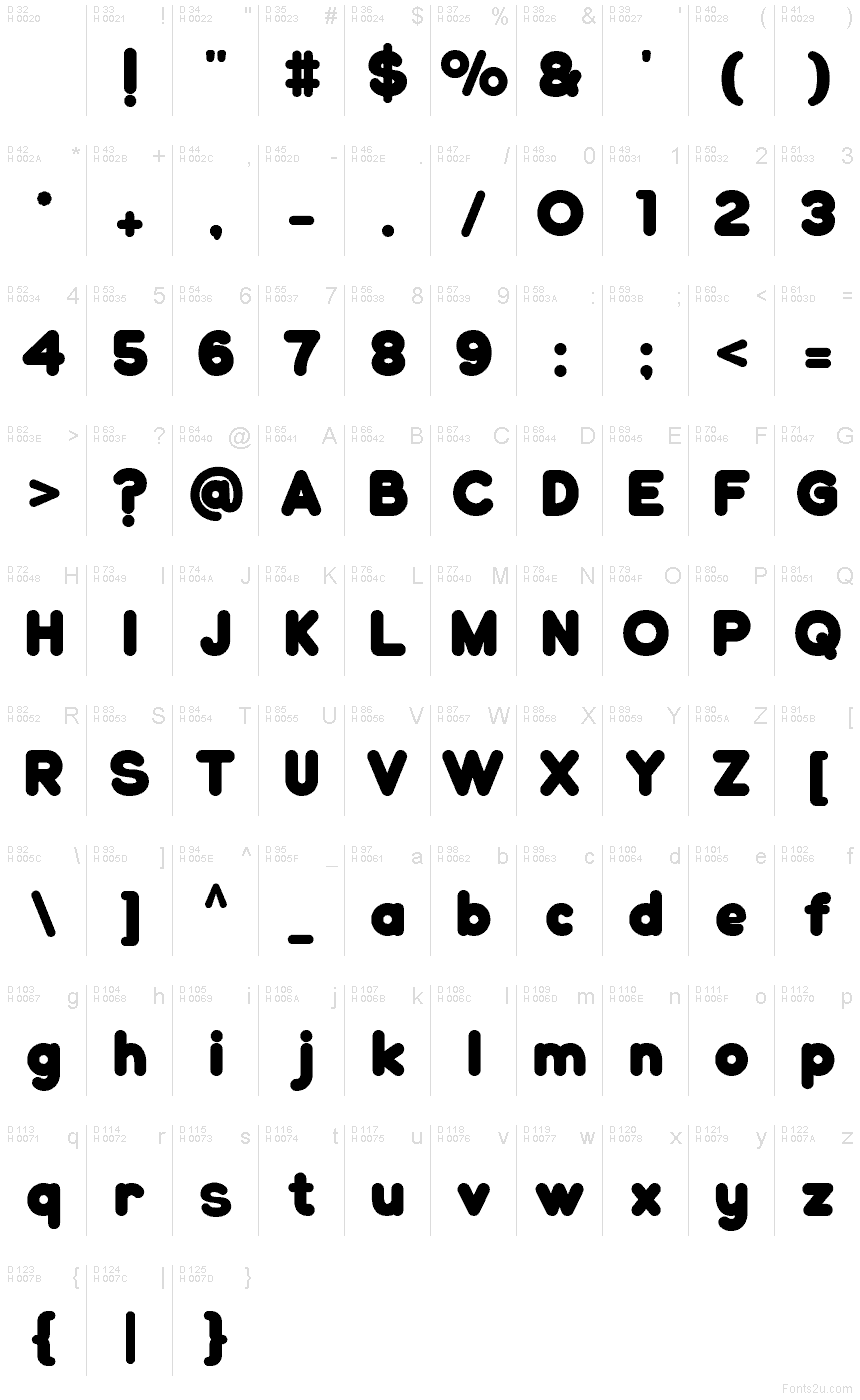
Qilka Bold
Qilka Bold font, designed by Rahagita Studio, is a free modern sans serif font inspired by the Bauhaus style. The font’s clarity of geometric forms and characters adds elegance and simplicity while simultaneously presenting diversity in usage which makes it perfect for all kinds of designs. Enjoy the original vibe created by the geometric composition of Qilka Bold which gives life to each character.
A well-composed appearance is granted along with a natural confident feel to your business cards, brochures, brand presentations, website headers and footers when using this display font. Other ideas for usage also include posters, headlines, advertisements (both printed and digital), flyers in addition to book covers or product packaging.